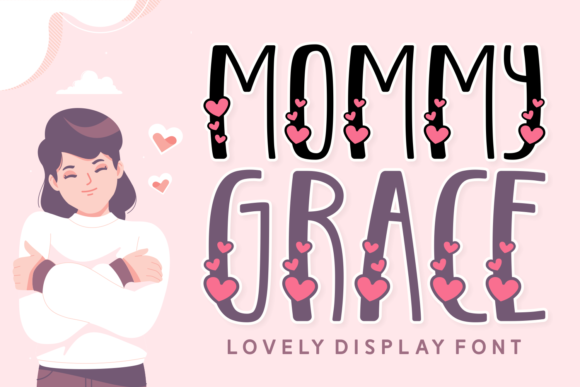
Mommy Grace: A Feminine Display Font for Romantic and Personalized Design
When it comes to creating designs that feel personal, heartfelt, and elegant, the Mommy Grace font stands out as a go-to choice. This romantic typeface is more than just a stylish option—it’s a tool that can bring warmth and emotion to a wide range of creative projects. Whether you're designing for a special occasion or looking for a unique way to express yourself, Mommy Grace offers a soft, feminine aesthetic that resonates with many.
What Makes Mommy Grace Special
Mommy Grace is a display font that exudes femininity and charm. Its delicate curves and ornate details make it ideal for projects that require a touch of elegance. One of its most distinctive features is the inclusion of heart symbols throughout the design, adding an extra layer of sentimentality. These hearts aren’t just decorative—they help reinforce the emotional tone of any project using this font.
The font’s structure allows it to work well in both digital and print formats. Its readability is maintained even at smaller sizes, making it versatile for different applications. However, it’s important to note that because of its decorative nature, it may not be the best choice for large blocks of text. Instead, it shines when used as a headline, title, or focal point in a design.
Real-World Applications of Mommy Grace
One of the most common uses for Mommy Grace is in Mother’s Day cards. The font’s romantic feel pairs perfectly with messages of love and gratitude. Whether you’re creating a handmade card or a digital template, the font adds a personal and heartfelt touch. The heart symbols also serve as a subtle reminder of the bond between mother and child, making it a meaningful addition to any design.
Beyond cards, Mommy Grace is popular in fashion design. T-shirts, hoodies, and other apparel items often feature this font to create a cute and stylish look. It’s especially appealing for brands targeting young mothers or those who appreciate vintage-inspired aesthetics. The font’s playful yet sophisticated style makes it suitable for both casual and more refined clothing lines.
In the realm of marketing and advertising, Mommy Grace can be used to create eye-catching banners, posters, and social media graphics. Its visual appeal helps draw attention to promotions, product launches, or event announcements. For example, a boutique offering personalized gifts might use this font on their website or promotional materials to convey a sense of care and individuality.
Who Benefits from Using Mommy Grace?
Designers and artists who specialize in wedding or baby-related themes often find Mommy Grace to be a valuable asset. Its romantic style aligns well with the emotions associated with these events, making it a natural fit for invitations, signage, and other related materials. The font’s heart symbols can also be used to emphasize themes of love, family, and connection.
Small business owners looking to create a unique brand identity may also benefit from using Mommy Grace. Whether it’s for a logo, packaging, or marketing collateral, the font can help differentiate their offerings in a competitive market. Its feminine and approachable look can appeal to a broad audience, particularly those who value personalization and emotional resonance in their purchases.
Individuals who enjoy DIY projects, such as crafting or customizing home decor, can use Mommy Grace to add a personal touch to their creations. From wall art to mugs and calendars, the font provides a way to express creativity while maintaining a cohesive and stylish appearance.
Considerations When Using Mommy Grace
Before incorporating Mommy Grace into a design, it’s important to consider the context and audience. While the font is visually appealing, it may not be suitable for all types of projects. For instance, formal or professional settings may require a more traditional or minimalist font. Understanding the tone and message of the design will help determine whether Mommy Grace is the right choice.
Another consideration is the availability of the font. Depending on where you’re working—whether it’s a design software, a website, or a print project—you’ll need to ensure that the font is accessible and properly licensed. Some fonts may have restrictions on commercial use, so it’s always wise to review the terms before proceeding.
Finally, testing the font in different sizes and formats can help identify any potential issues. While Mommy Grace is generally readable, certain characters or combinations may appear less clear at smaller sizes. Experimenting with spacing, color, and background can enhance the overall impact of the design.
Strengths and Limitations of Mommy Grace
The main strength of Mommy Grace lies in its ability to convey emotion and personality. Its feminine and romantic style makes it ideal for projects that aim to connect with the audience on a personal level. The heart symbols add a unique visual element that can enhance the overall aesthetic of a design.
However, the font’s decorative nature can also be a limitation. In some cases, the intricate details may not translate well to certain mediums or screen sizes. Additionally, because it’s a display font, it may not be the best choice for long paragraphs of text. Users should be mindful of how the font interacts with other design elements to maintain clarity and balance.